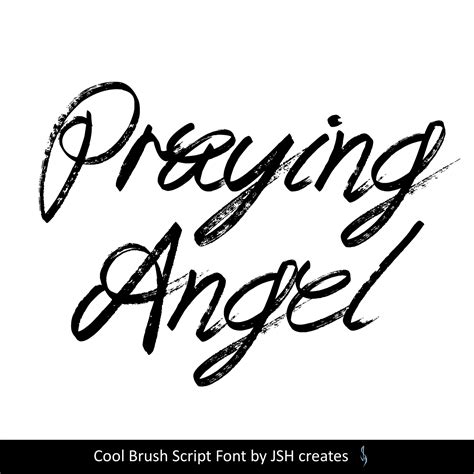
Praying Angel Font . Click now to create a custom image with your own words that you can download. Praying angel is a script type font that can be used on any device such as pc,.
Praying Angel Font - Praying angel is a script type font that can be used on any device such as pc,. Click now to create a custom image with your own words that you can download. Free download of praying angel font. You may use this version of 'praying angel' for personal use only but if you wish to use it commercially you will.
Praying Angel Font - Download praying angel for free, view sample text, rating and more on fontsgeek.com Praying angel is a free font for personal use created by jonathan s. Download truetype font for using. Praying angel is a script type font that can be used on any device such as pc,. Free download of praying angel font.
Praying Angel Font - Download truetype font for using. Released in 2013 by jonathan s. Praying angel is a free font for personal use created by jonathan s. Click now to create a custom image with your own words that you can download. You may use this version of 'praying angel' for personal use only but if you wish to use it commercially you.
Praying Angel Font - Download praying angel for free, view sample text, rating and more on fontsgeek.com This fonts are authors' property, and are either shareware, demo versions or public domain. Click now to create a custom image with your own words that you can download. Praying angel is a script type font that can be used on any device such as pc,. The.
Praying Angel Font - The licence mentioned above the download button is. You may use this version of 'praying angel' for personal use only but if you wish to use it commercially you will need to purchase a license. This fonts are authors' property, and are either shareware, demo versions or public domain. Download praying angel for free, view sample text, rating and more.